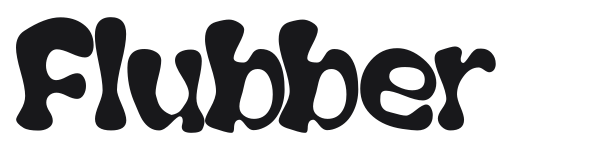
Oliver
by Prima Font · Website
Oliver is a bold, swirling display face from Prima Font that leans fully into psychedelic lettering, with thick strokes and exaggerated curves that feel like they're melting off the page. The decorative forms have a distinctly vintage character, rooted in late '60s and '70s poster art. Best kept to headlines, album covers, and retro branding where the groovy excess is the whole point.